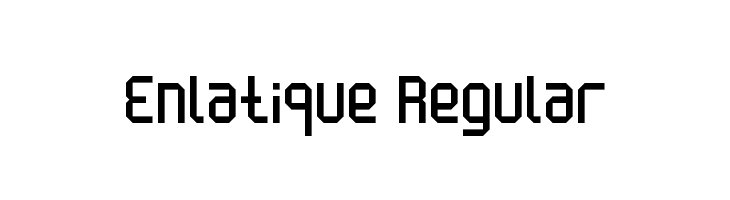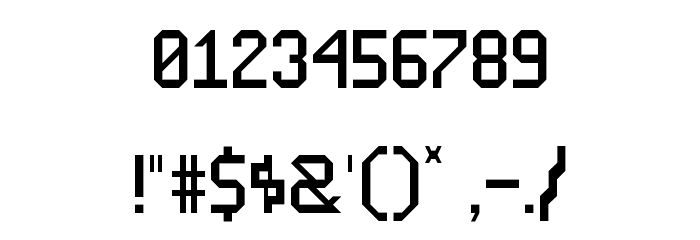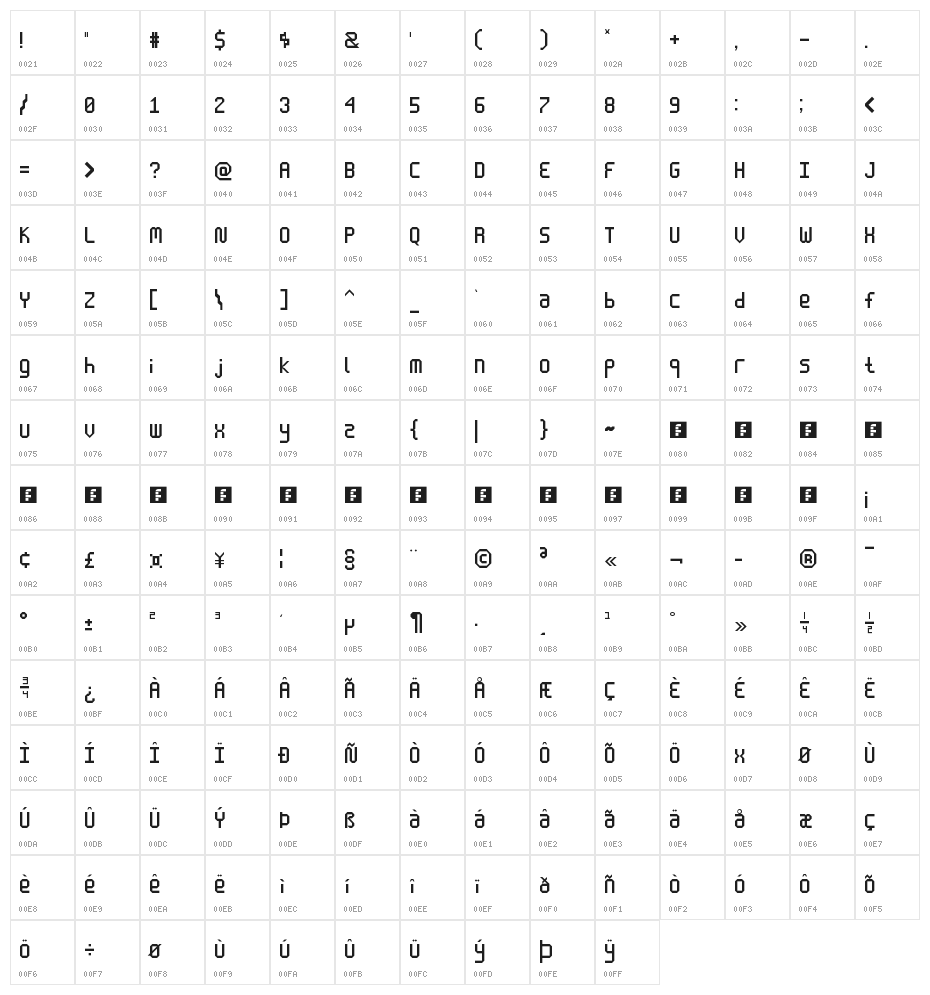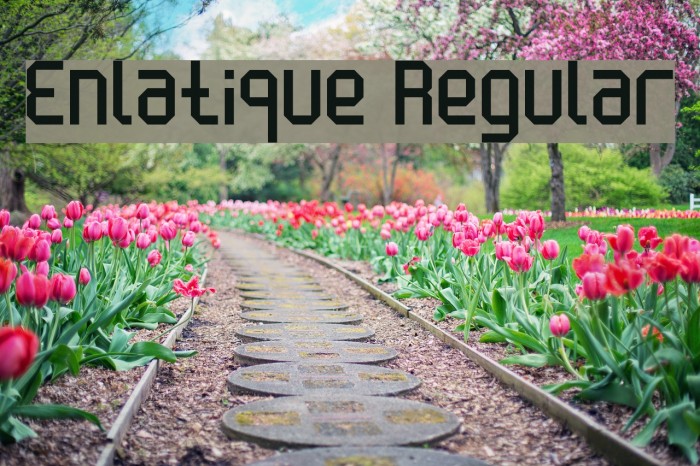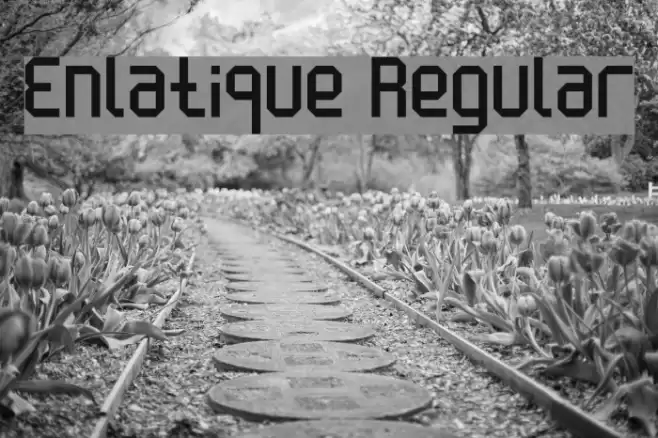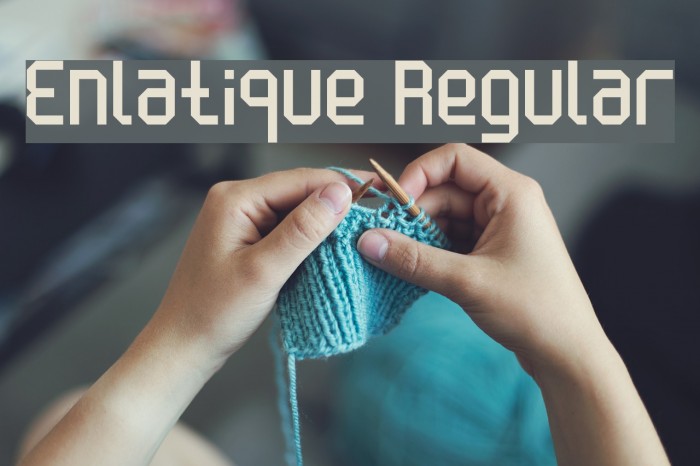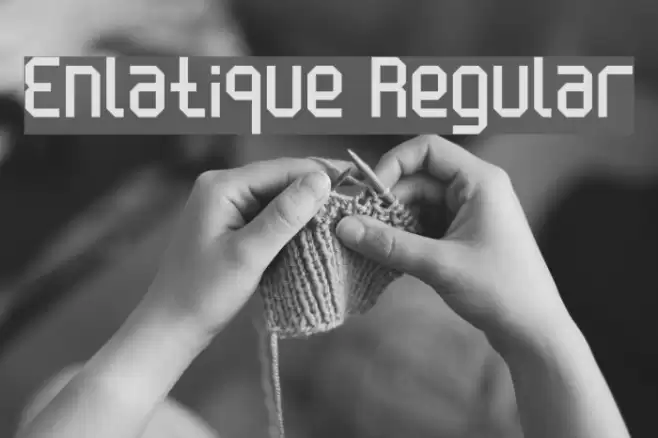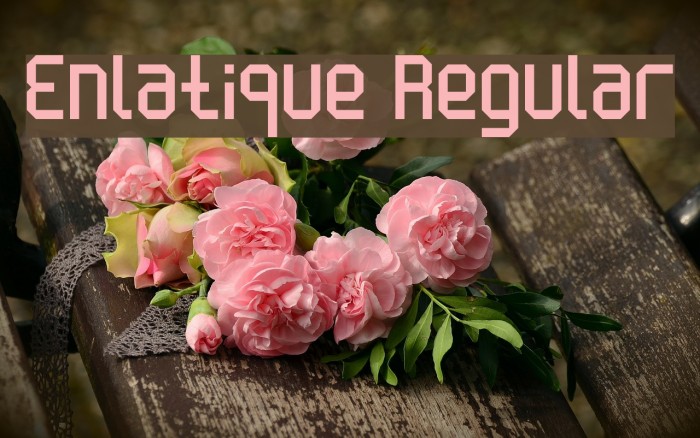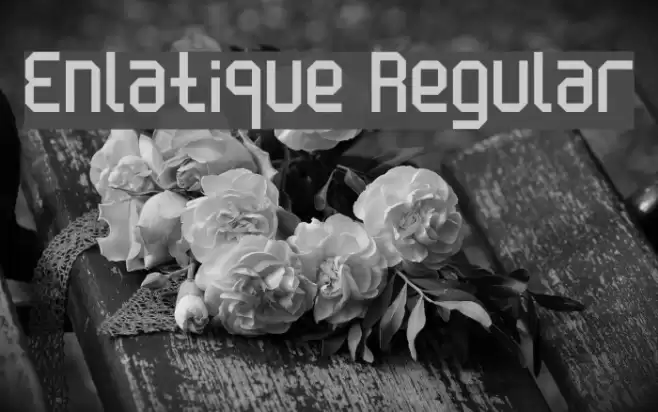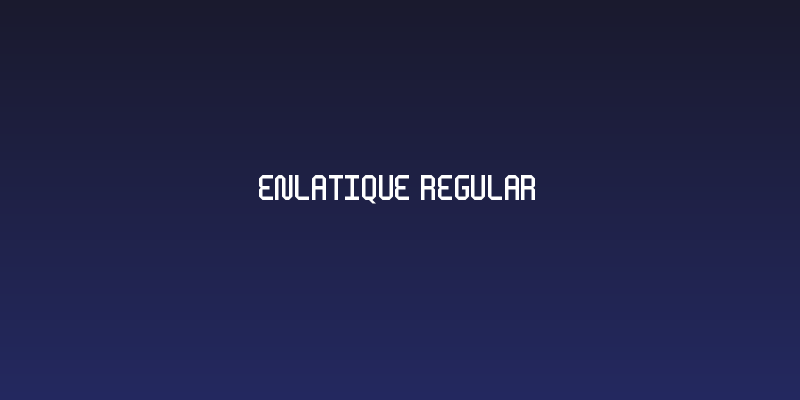
Enlatique Regular Font
Enlatique Regular Description
This font features a geometric and modern design with a distinct blocky appearance. The characters are constructed with straight lines and sharp angles, giving it a futuristic and digital feel. The uppercase and lowercase letters maintain a consistent style, with uniform stroke widths and a slightly condensed form. The numerals and special characters follow the same design principles, ensuring a cohesive look across all glyphs. This font's unique style makes it stand out, ideal for projects that require a modern and tech-savvy aesthetic.
| Proposed Projects | Ideal for tech branding, digital interfaces, video game design, and futuristic-themed projects. |